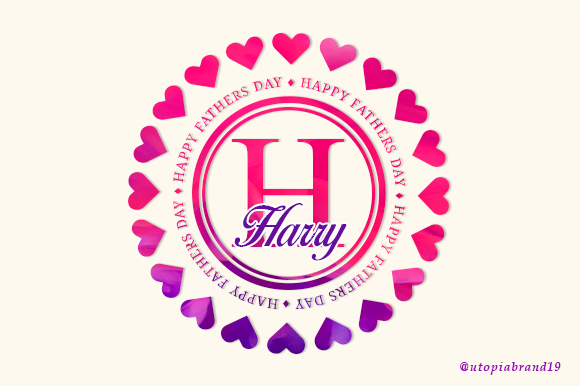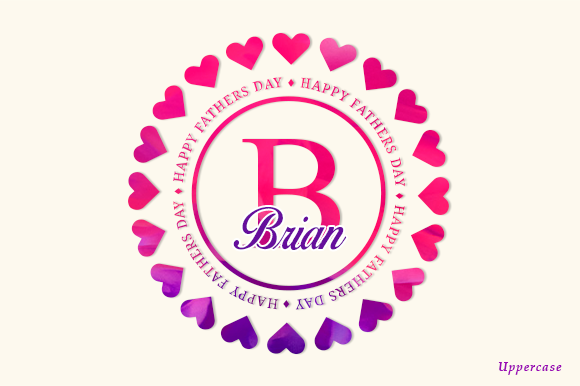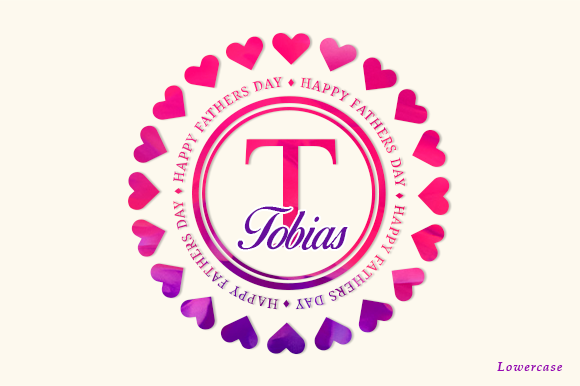
Happy Fathers Day Font
About the Happy Fathers Day Font
From logos to headlines, the Happy Fathers Day Font is the perfect choice for making a lasting impression. Happy Fathers Day Monogram is a charming decorative font. Fall in love with its authentic feel and use it to create gorgeous invitations, beautiful stationary art, eye-catching social media posts, and cute greeting cards.
Its playful, slightly rustic charm makes it ideal for projects requiring a touch of handcrafted warmth. Consider using it for branding related to artisanal goods, family-oriented businesses, or celebratory events. It excels in headlines, short-form text, and logos, adding a distinct personality to packaging and social media graphics. However, its decorative nature makes it less suitable for body text or UI elements where readability is paramount.
Pairing it with a clean sans-serif like Open Sans for body copy creates a balanced contrast, while a script font like Great Vibes adds a layer of sophisticated elegance for more formal applications. For a more modern feel, consider pairing it with a geometric sans-serif such as Montserrat.
The font’s overall personality is best described as friendly and approachable, yet refined enough to avoid appearing childish or overly casual.